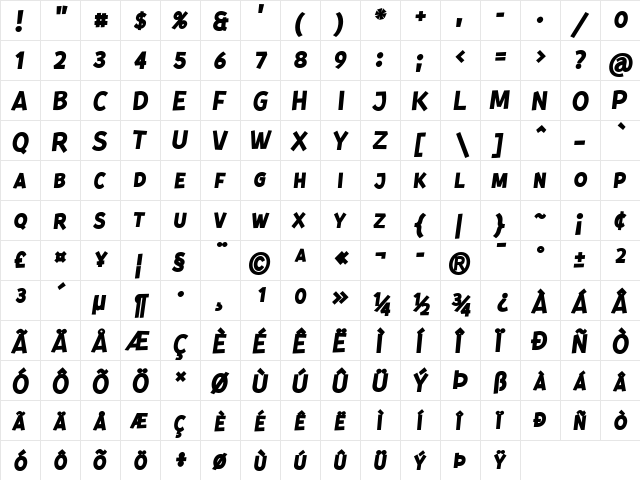
Kurri Island Caps Italics Bold Font Preview
| Foundry | Mans Greback |
| Designer | Mans Greback |
Design Context for Kurri Island Caps Italics Typeface
Kurri Island Caps Italics offers clean, dependable letterforms without strong stylistic allegiance, making it a practical choice for designers who need flexibility. Its italic angle brings a sense of urgency and motion to the letterforms. Its bold stroke weight gives it real presence on the page.
Pro Tip: Try Kurri Island Caps Italics for annotation and caption copy alongside an upright companion — the contrast in angle creates a dynamic but ordered typographic system.